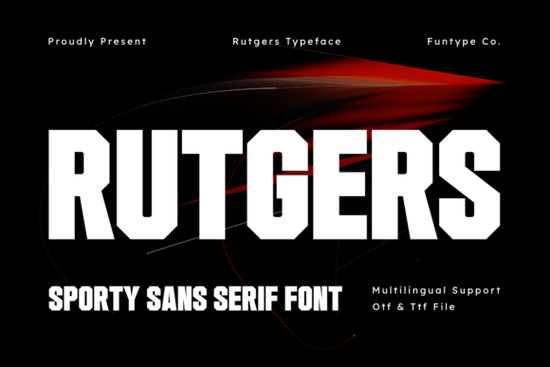
If you're looking for a bold, no-nonsense font that commands attention in sports branding, streetwear design, or custom merchandise, Rutgers Font delivers exactly what you need. It’s built for impact thick, blocky letterforms with clean spacing make it ideal for headlines, team logos, and high-visibility graphics. Whether you’re designing for athletic jerseys, vinyl decals, or event posters, this typeface stands out without needing extra effects.
What makes Rutgers Font stand out?
Unlike many sans serif fonts that feel generic or soft, Rutgers has a strong, grounded presence. Its octagonal structure gives each letter a solid, balanced look perfect for screen printing, embroidery, or fabric printing. The weight is consistent across all characters, so your designs stay sharp whether they’re printed small or blown up large.
Best uses for Rutgers Font
- Team logos & varsity designs: Perfect for school clubs, youth leagues, or university teams wanting a classic but modern look.
- Streetwear clothing lines: Use it to create aggressive, urban-style apparel labels and graphic tees.
- Sporting event posters: Grab attention at first glance with bold headlines and clean typography.
- Custom vinyl decals & stickers: The thick strokes hold up well when cut and applied to surfaces.
- Merchandise layouts: Great for adding authority to product packaging, tote bags, or mugs.
You’ll find that Rutgers works especially well when paired with minimalist backgrounds. Because the font itself is so strong, it doesn’t need additional styling just clean space around it to shine.
How does it compare to other fonts in its style?
While fonts like Marshmallow offer a softer, rounded vibe, or Matcha Cream leans into organic textures, Rutgers stays focused on strength and clarity. If you want something that feels like it belongs on a stadium scoreboard or a downtown graffiti wall, this is the one.
For those who enjoy more geometric precision, Movark offers a similar rigid structure, but Rutgers adds a touch more personality through its slightly uneven stroke distribution giving it an authentic, hand-crafted edge.
When you’re aiming for a rugged, no-frills aesthetic, Negula brings a raw, industrial tone. But Rutgers strikes a better balance between toughness and readability, making it more versatile for commercial use.
And if you’re drawn to bold Latin-inspired designs, Mexica has cultural depth but again, Rutgers keeps things modern and universal, with no reliance on thematic elements.
Looking for inspiration? Try pairing Rutgers with subtle gradients, monochrome color schemes, or vintage textures. The font holds its own against any background, but it really shines when contrasted with neutral or dark tones.